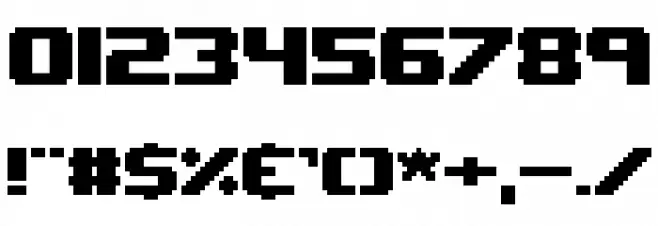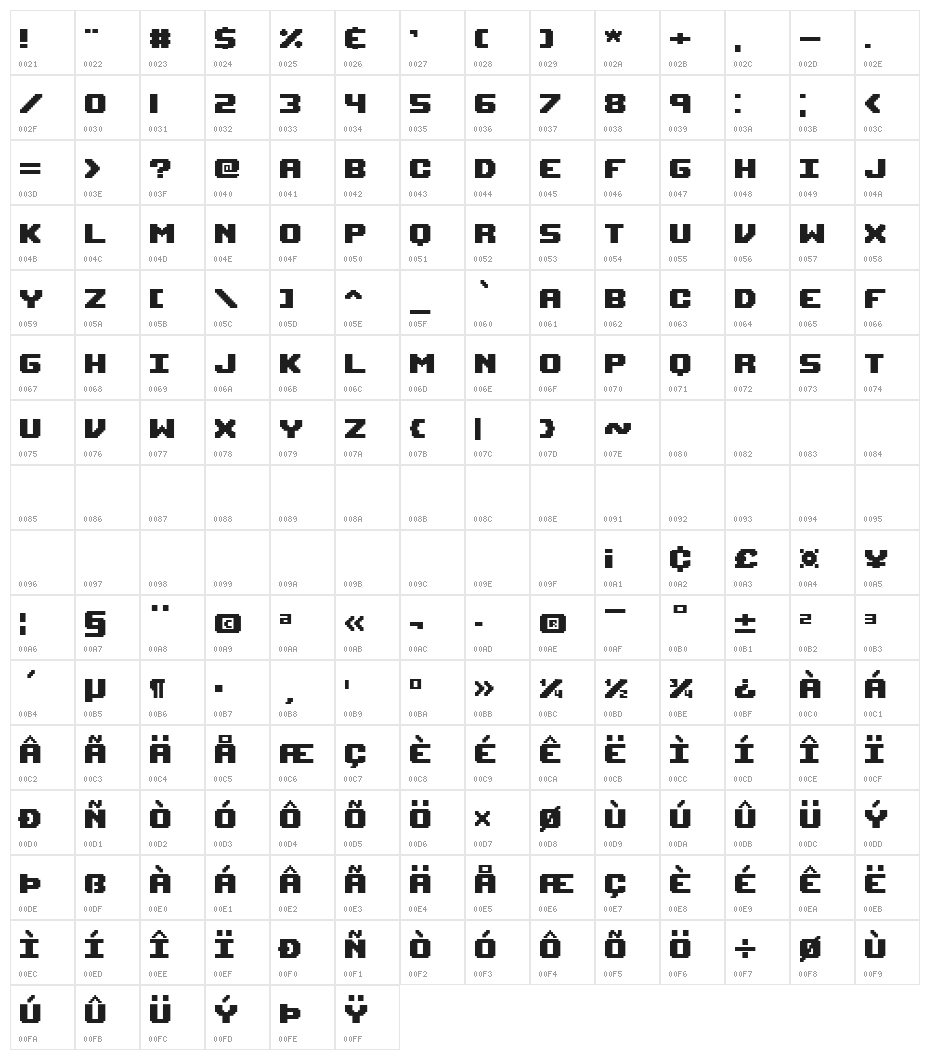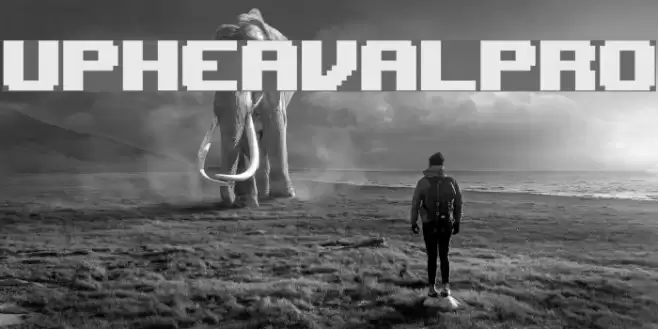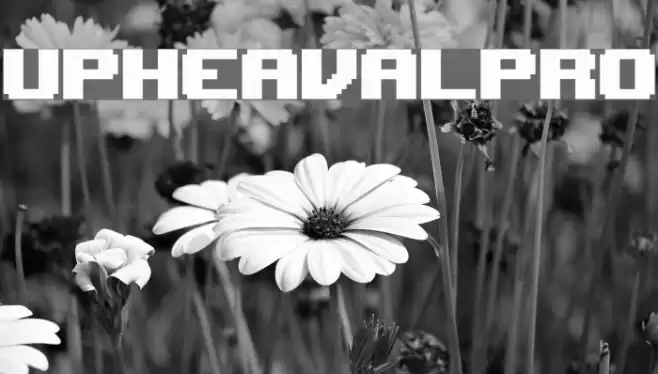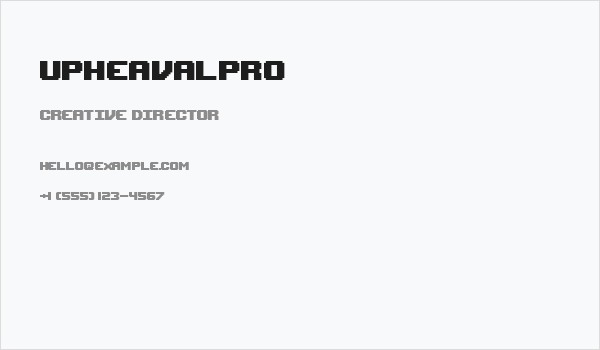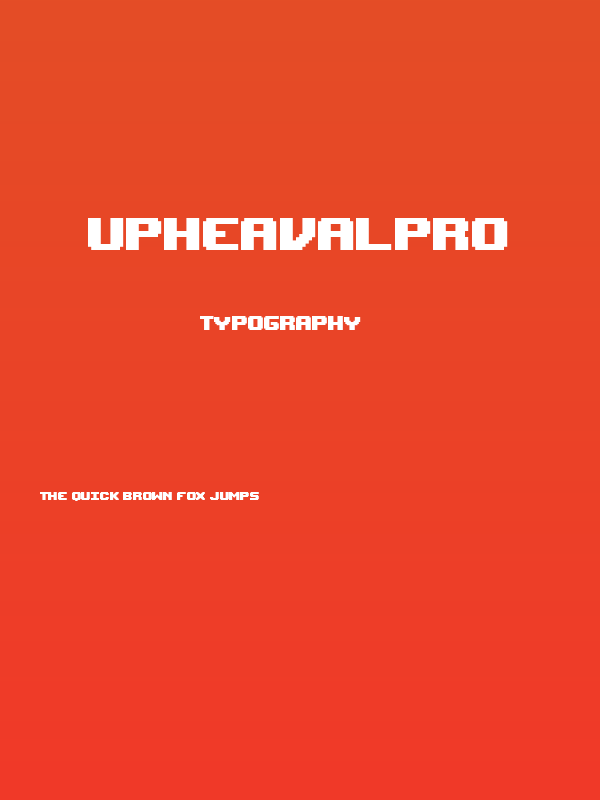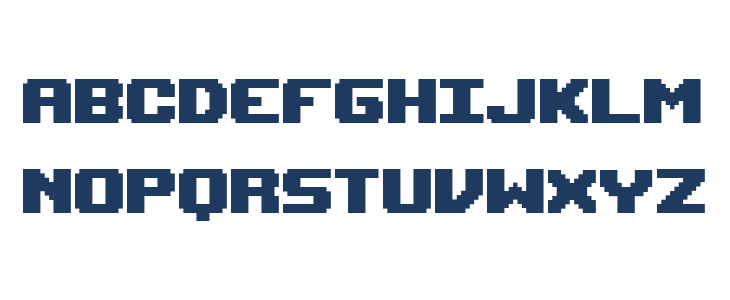
UpheavalPro Font
UpheavalPro Description
This font features a bold, pixelated style reminiscent of classic video game graphics. Each character is constructed with a blocky, geometric design that emphasizes a retro aesthetic. The uppercase and lowercase letters maintain a uniform height, contributing to a cohesive and structured appearance. Numbers and special characters are equally bold and consistent, enhancing the font's overall impact. The design is straightforward, with no curves or embellishments, making it ideal for digital and retro-themed projects.
| Use Case | Headlines, Logos, Digital Art |
| Proposed Projects | Ideal for video game graphics, retro-themed posters, digital art, and any project requiring a nostalgic, pixelated look. |